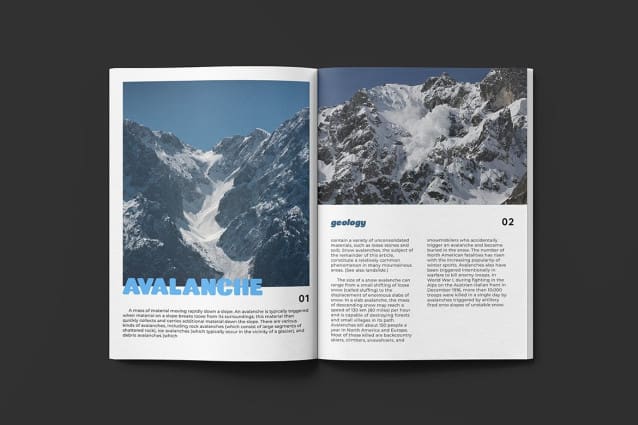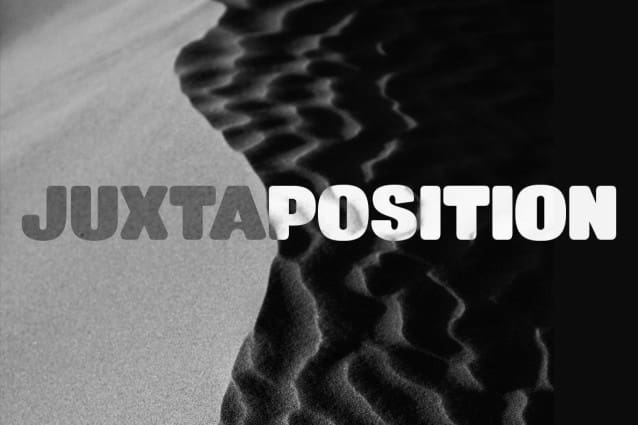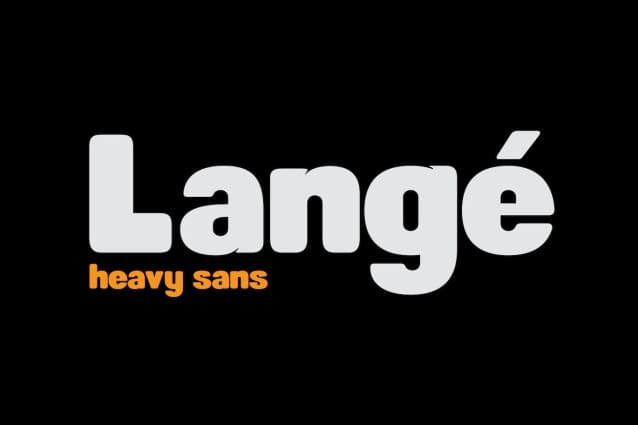
Langé Font
Langé Font is a heavy sans serif with soft edges that is an impactful yet gentle presence, making it suitable for headlines, headings, titles, magazines, posters etc.